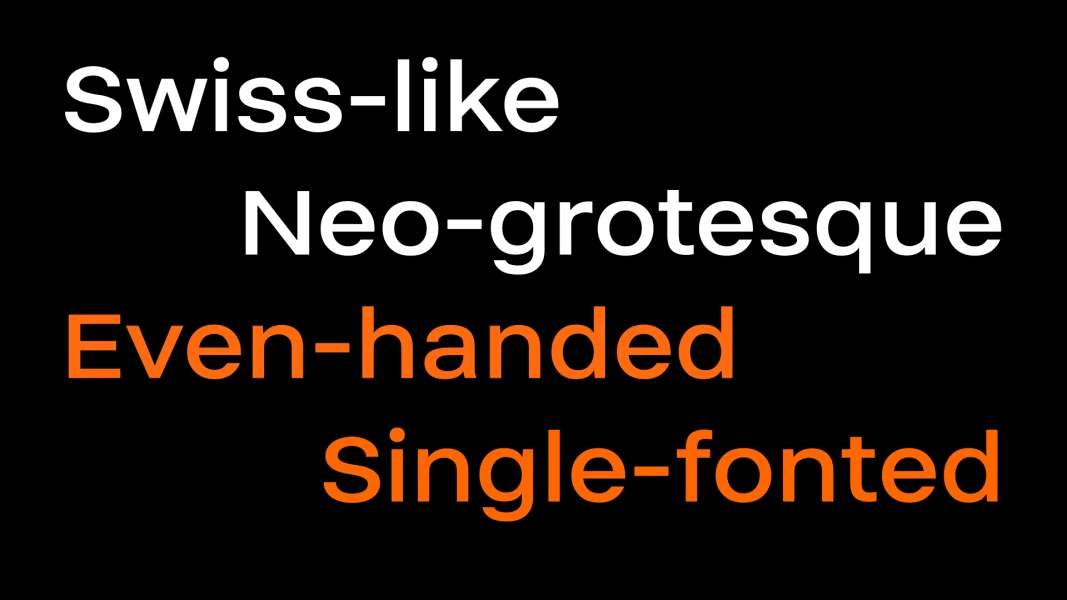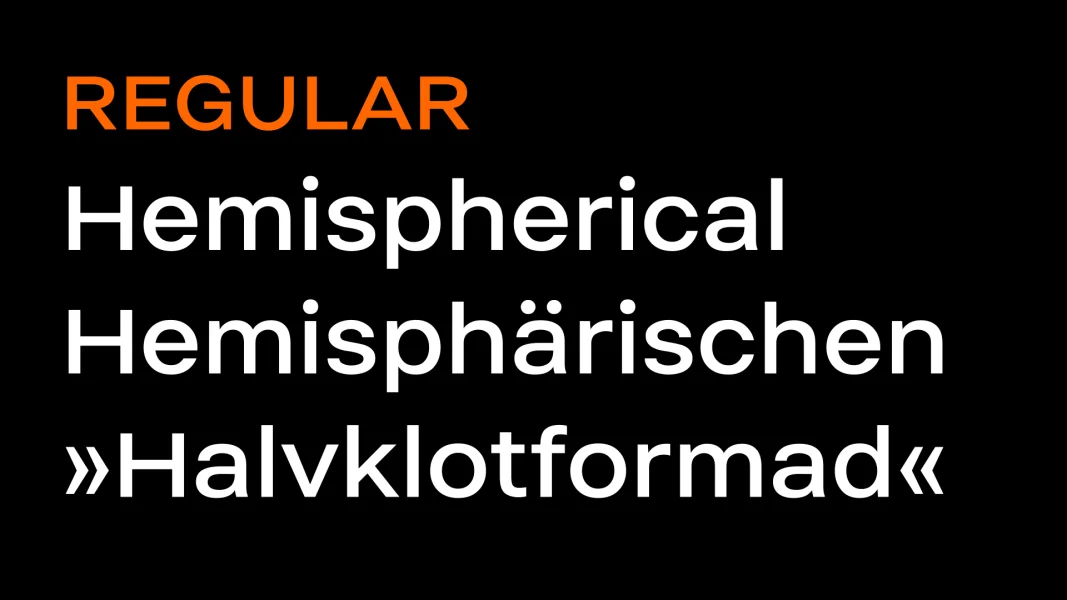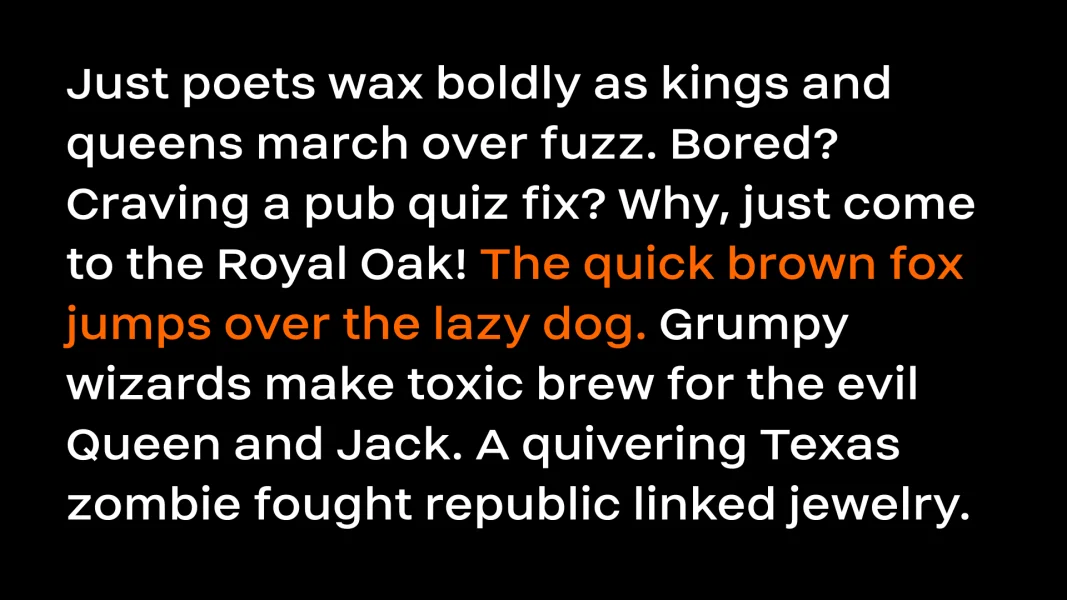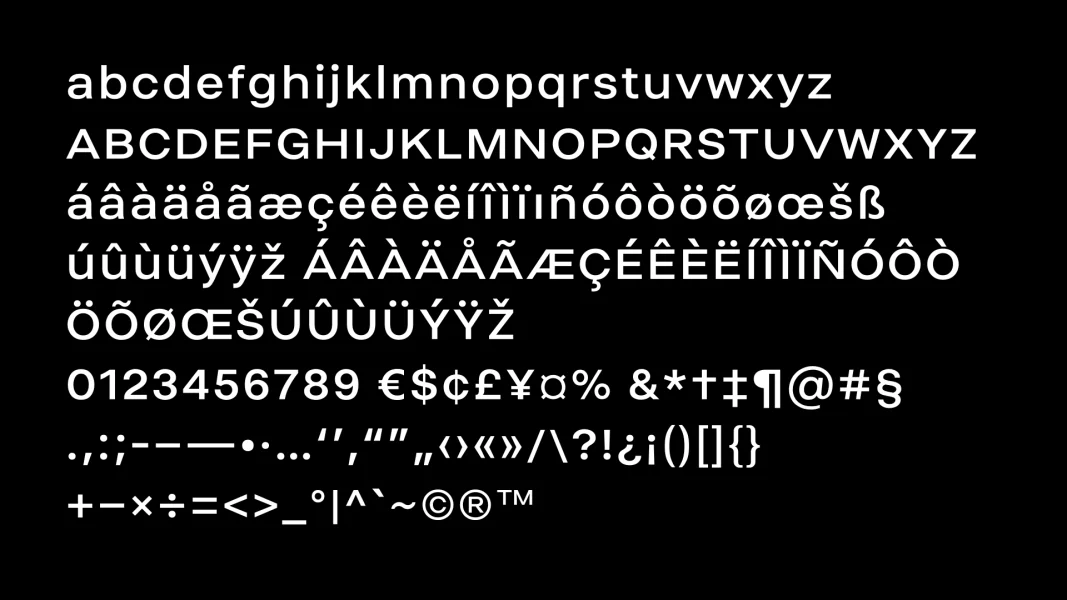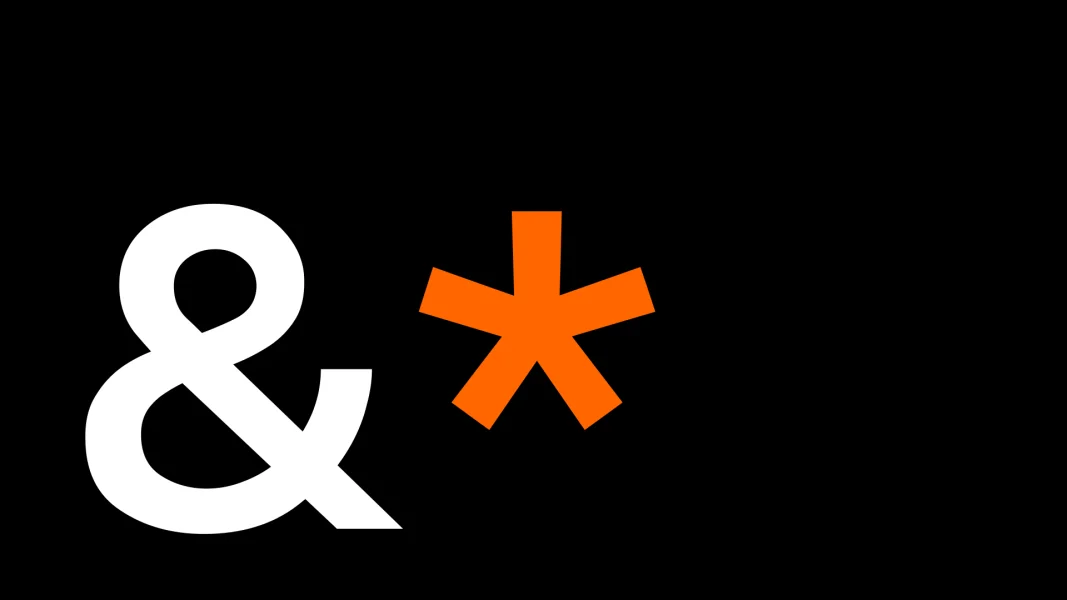
Helmet is a neo-grotesque display typeface, currently with a single font. It takes inspiration from Swiss classics like Helvetica and Univers but plays with proportions such as width and x-height to create a unique look and feel.